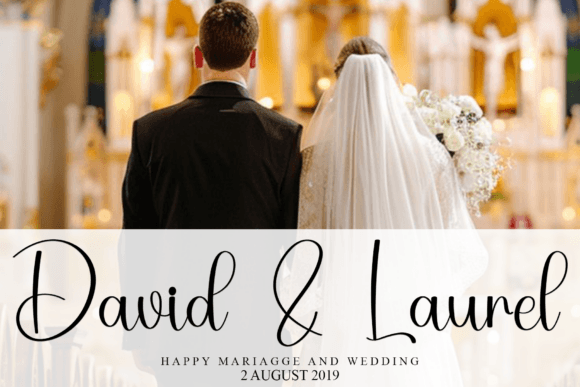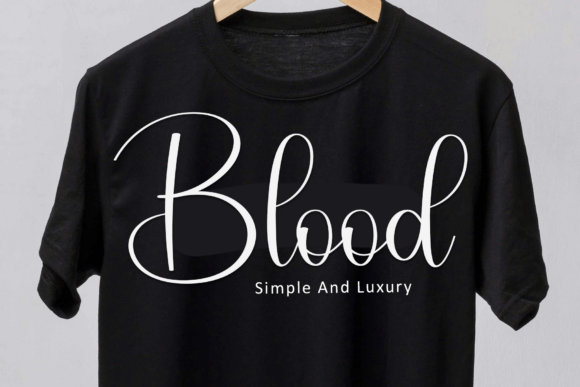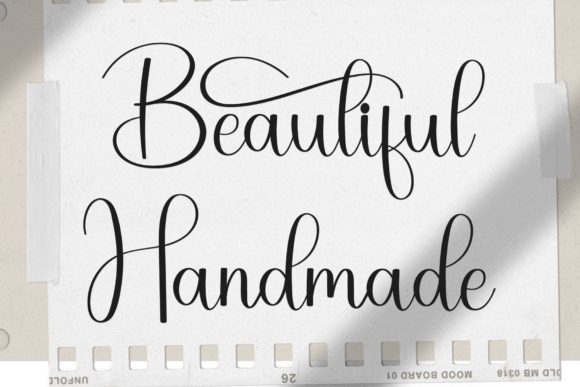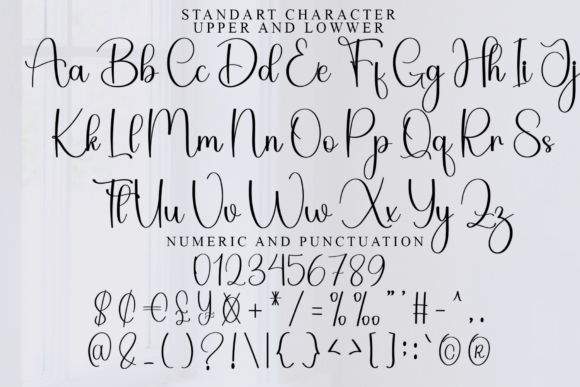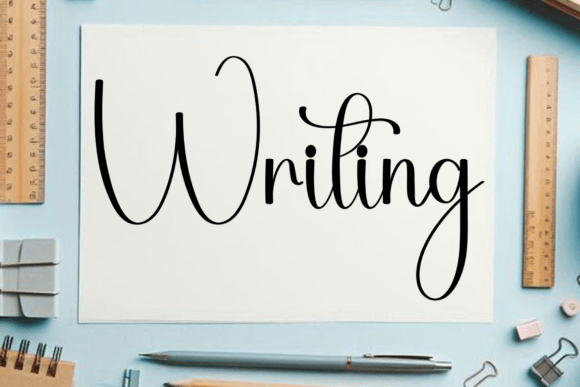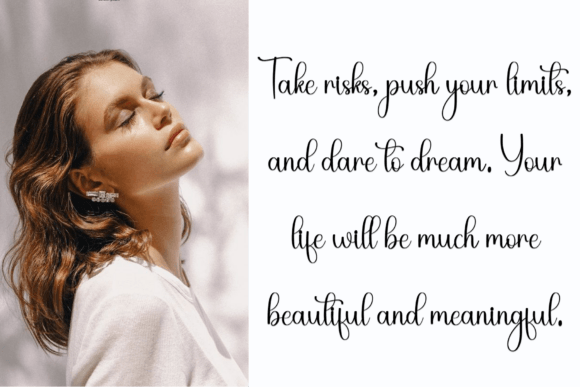
Introduction to Beautiful Ornaments Font
Beautiful Ornaments is a beautiful and eye-catching font designed with a soft, unique touch.
Its distinctive strokes give it a special character, making it meaningful and versatile for future use With various characters, itโs perfect for design projects, crafts, and other creative works.
Key Features of Beautiful Ornaments Font